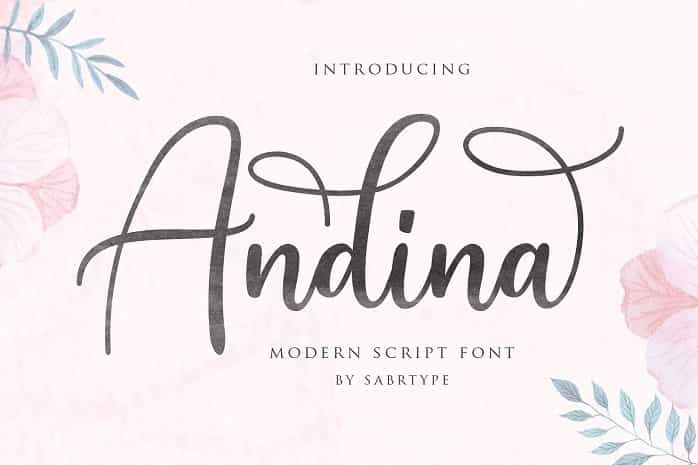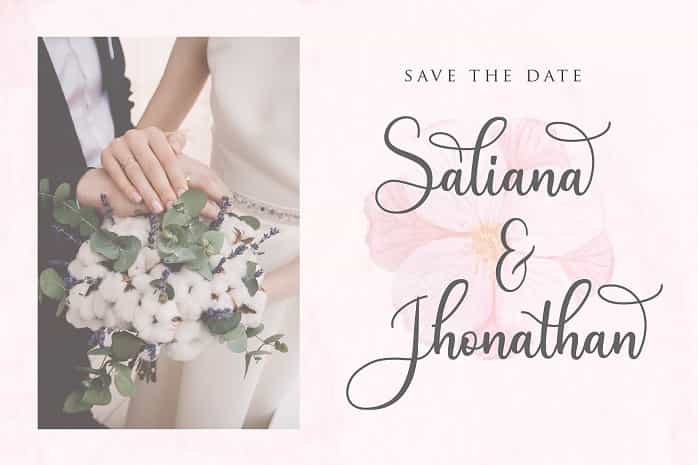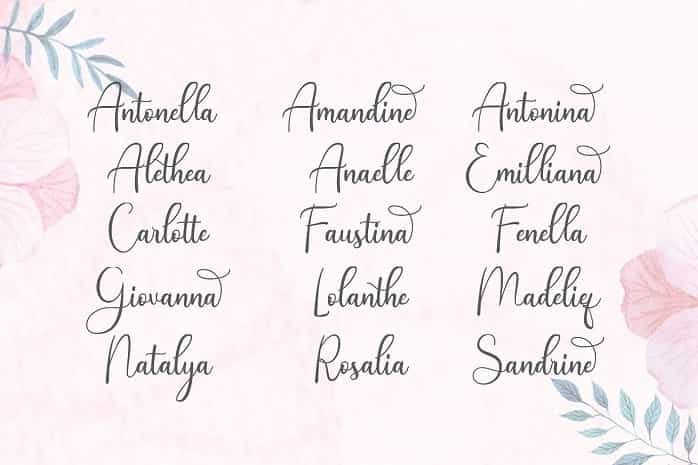
Discover Andina Script Font, part of the Calligraphy Handwritten collection—a versatile and unique font perfect for adding a personal touch to your projects. Download it for free and enjoy crafting designs with style, from invitations to social media posts. This font is available exclusively for personal use, giving you the freedom to create without limits. Unlock your creativity with Andina Script Font today!
Introducing Andina Font. It was created and distributed by Sabrtype. Andina font is suitable for a lot of projects among which logos & branding, headline, invitation, stationery, wedding designs and social media posts are the most common.